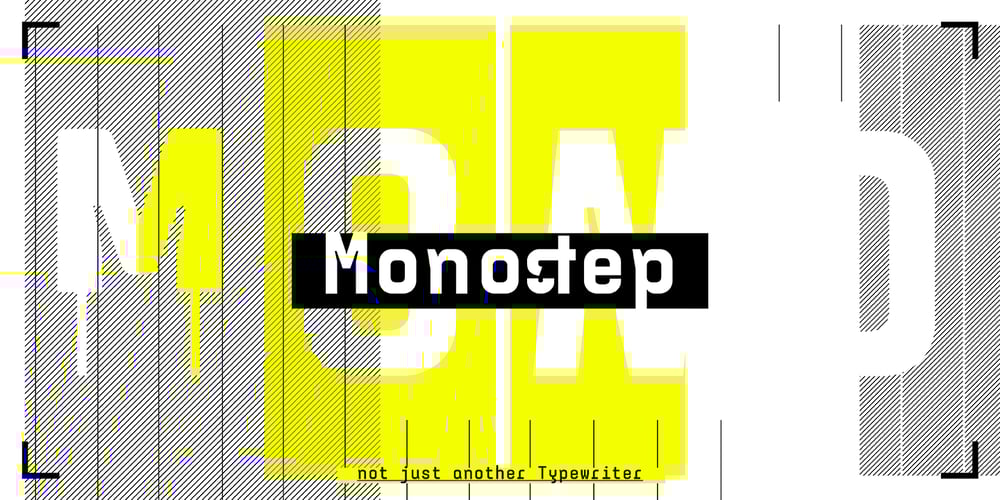
Monostep Font Family was designed by Judith Jöhren, Lisa Müller and published by YOKKMOKK. Monostep contains 48 styles and family package options. Monostep is not just another Typewriter. It can do so much more! It is available in five rigorously designed font styles; all of these come in Straight, Rounded and in Italics respectively. It contains geometric symbols as well as all of the characters of the Indo-European alphabet. What makes it so different, and thereby remarkable, are the 77 ligatures that combine letters in upper case, in upper case with lower-case letters and any combination of lower-case letters. Monostep is alive! It will be introduced into the typing script market with a highly characteristic corporate design. Various promotional gimmicks such as a specimen brochure, posters, a website, animations and a promo film with a distinct sound, including lyrics and a dance, make Monostep a truly recognizable label – they bring Monostep to life. That will make you want more: Let me see your Monostep! www.monostep.de